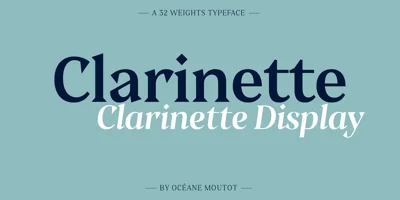
Clarinette Font
Clarinette Font is a charming and elegant typeface that brings a touch of vintage sophistication to any design. Please note that you must purchase this font for commercial use. You can download it for free for testing purposes. This font is perfect for applications like wedding invitations, vintage logos, packaging, magazine covers, and poster designs, where its bold serif style with retro strokes shines. Its nostalgic yet flexible design makes it exciting, evoking the vibrant charm of the 1960s era with a modern twist. The Clarinette Font family includes Regular, Bold, and Italic styles, offering versatility for diverse creative projects.
Transform your projects with Clarinette Font, a typeface inspired by the retro fonts of the 60s, crafted by Ikiiko Type to deliver a sturdy yet adaptable serif aesthetic. Its bold letterforms and simple vintage strokes make it ideal for creating standout branding, eye-catching flyers, or elegant wedding stationery. The font’s firm structure ensures readability, while its subtle flexibility adds a playful, nostalgic flair, perfect for both print and digital media. Whether you’re designing a logo for a boutique, overlaying stylish text on a background image, or crafting a retro-themed campaign, Clarinette Font delivers a timeless appeal. Available on platforms like dafont.com and befonts.com, this font supports multilingual characters, enhancing its global usability. Download it today to explore its retro charm and infuse your designs with a bold, sophisticated energy that captivates audiences.